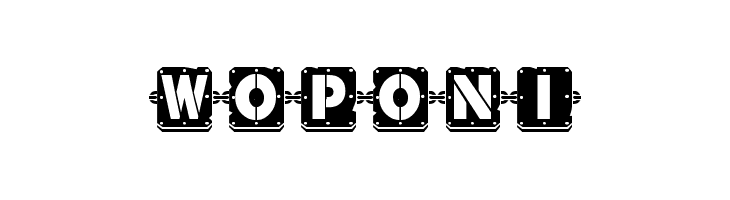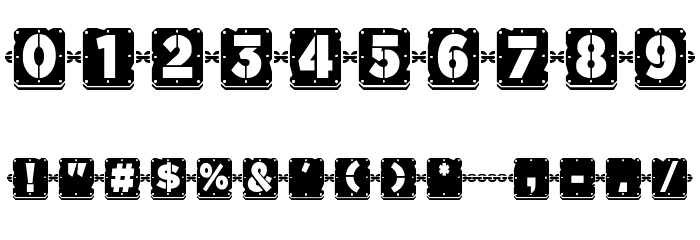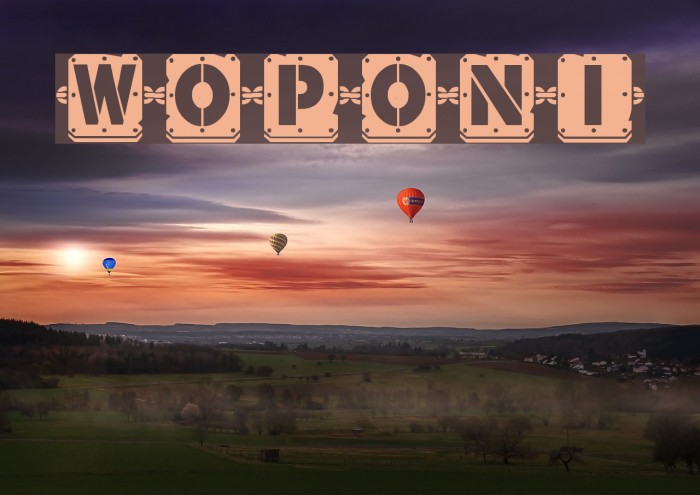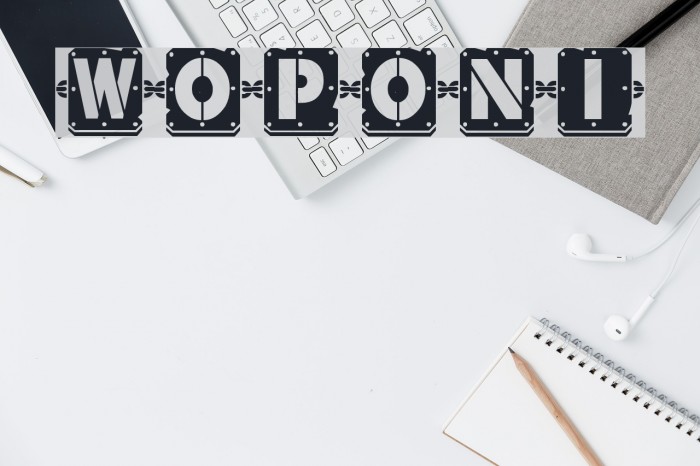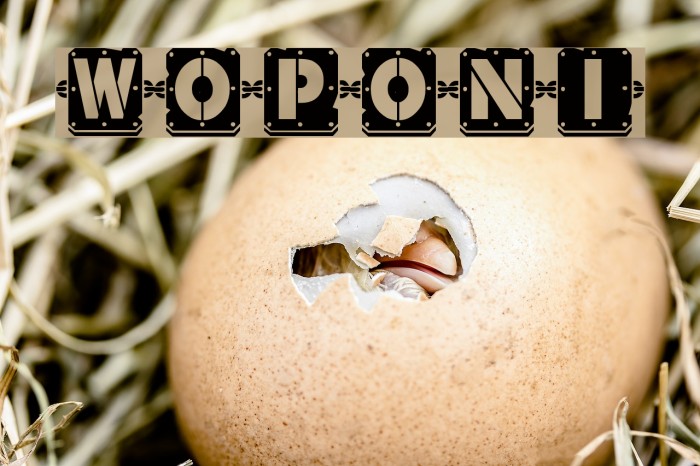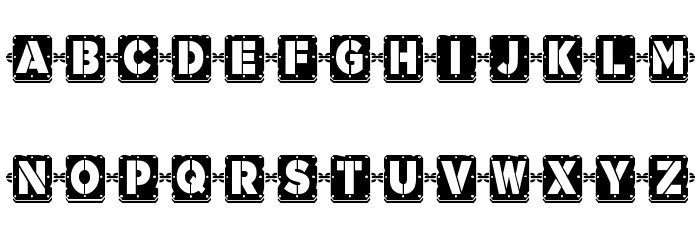
Woponi Font
This font features a unique design where each character is enclosed within a square frame, connected by a chain-like pattern. The characters themselves are bold and have a strong presence, with a high contrast between the thick strokes and the negative space inside the frames. The overall aesthetic is industrial and mechanical, reminiscent of machinery or factory settings. The font's decorative style makes it stand out, suitable for projects that require a bold and eye-catching typeface.
A bold, industrial font with characters enclosed in chain-linked frames.
• Proposed Projects: Ideal for posters, branding, and themed event invitations that require a strong, industrial look.
• Category: Decorative/Display
• Contrast: High
• Overall Style: Industrial, Decorative
• Use Case: Headlines, Logos, Posters